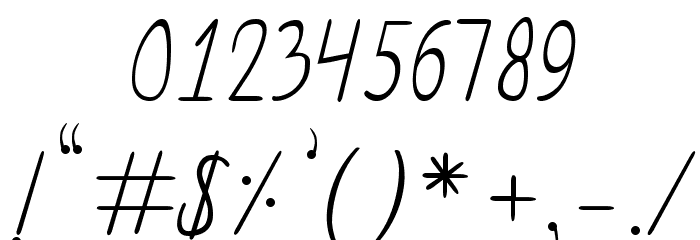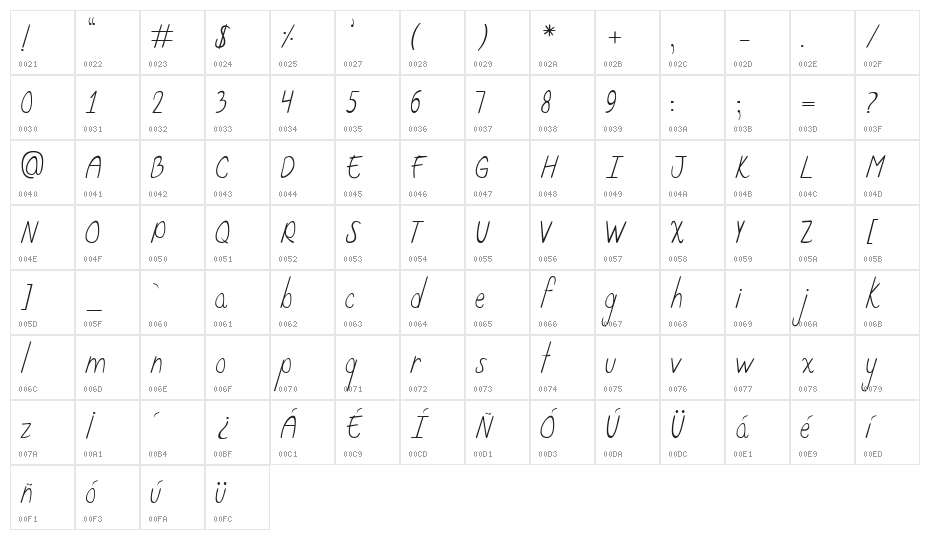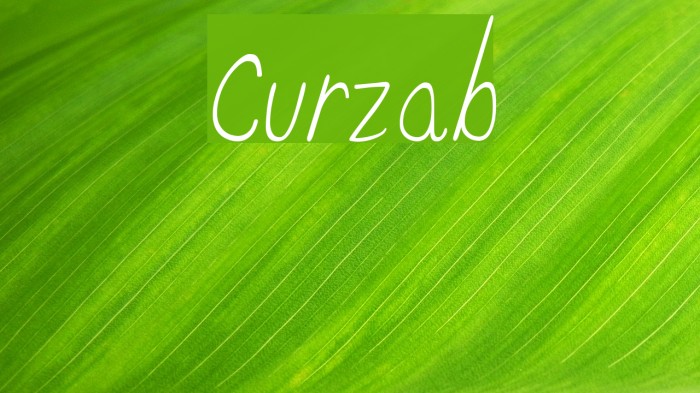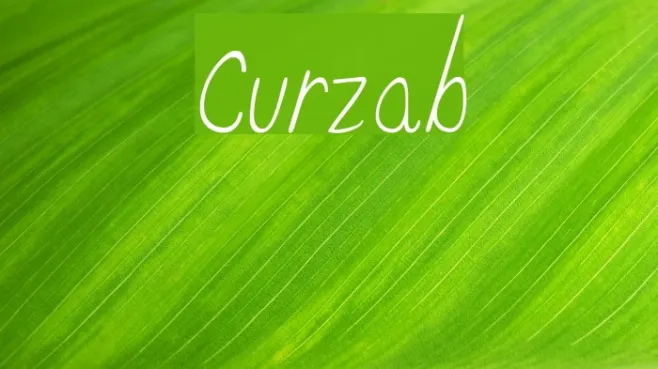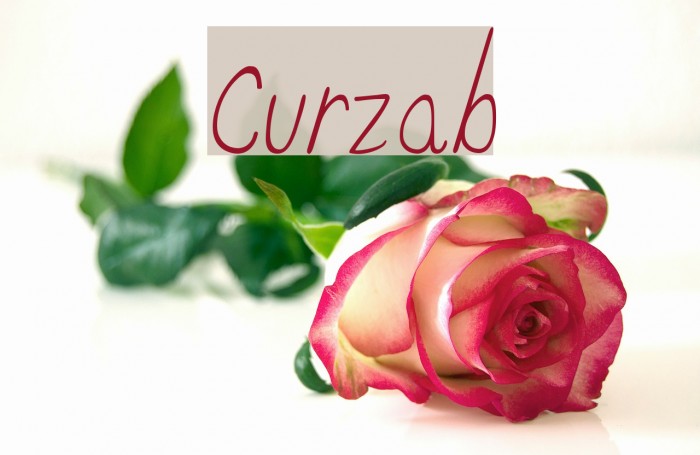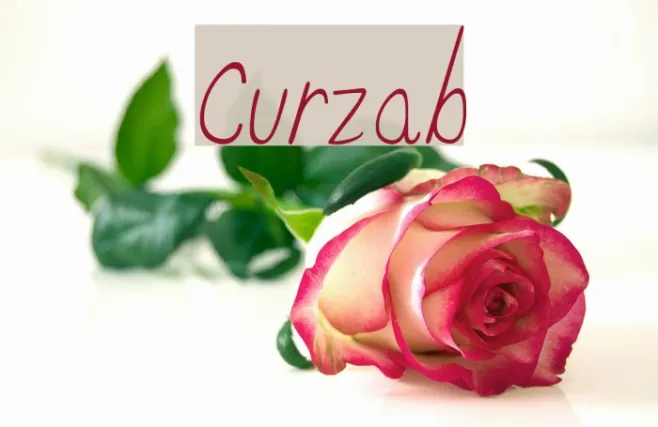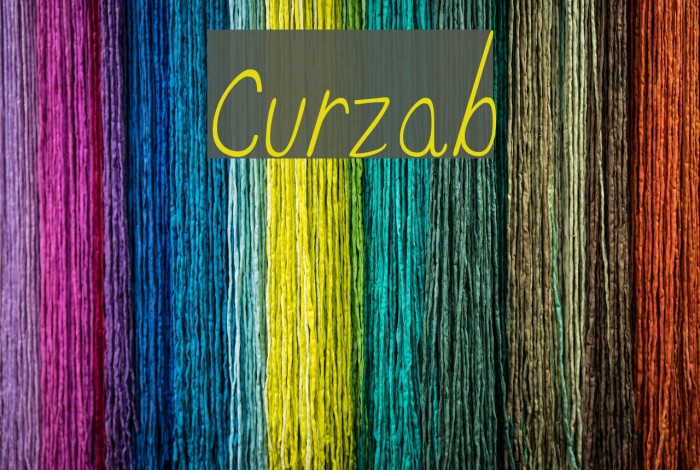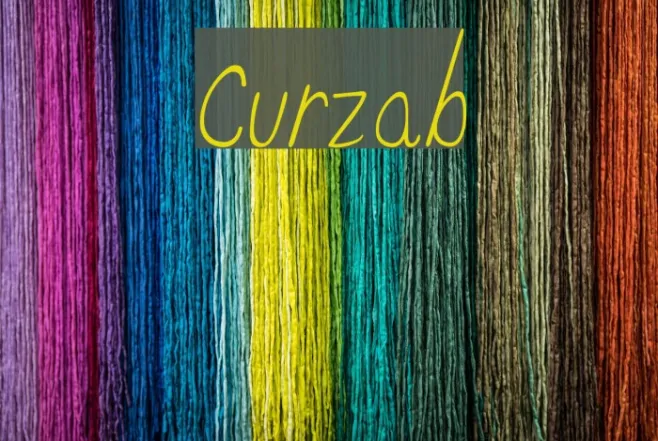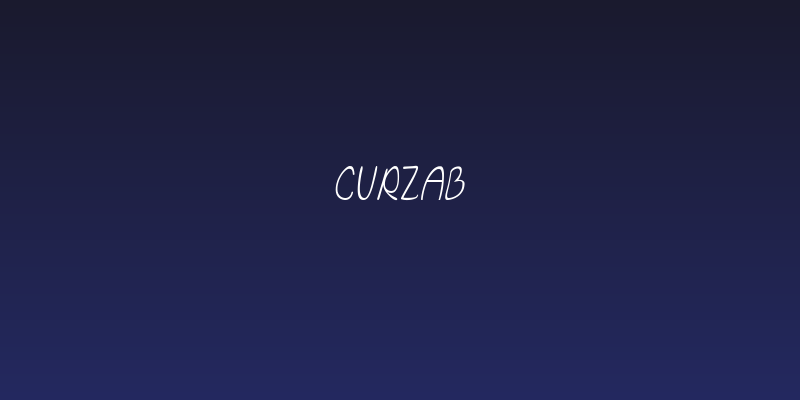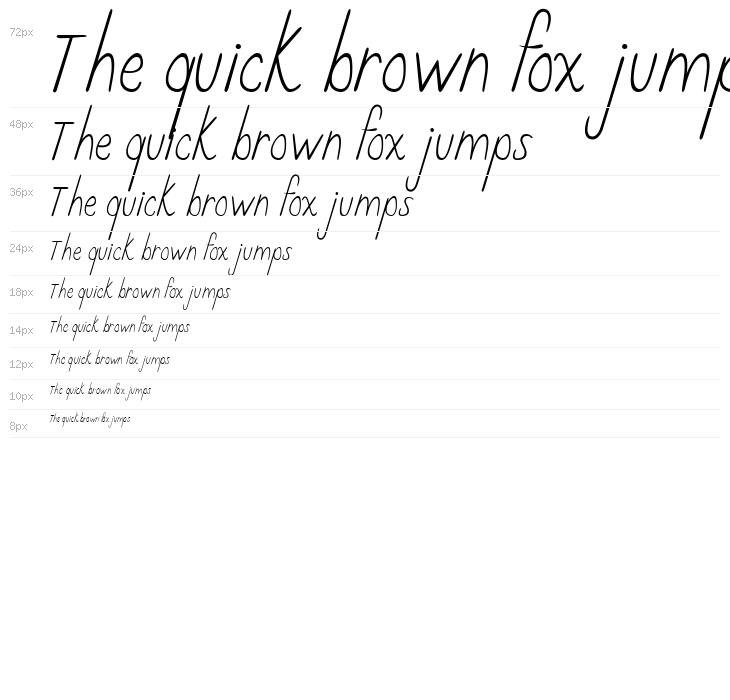
Curzab Font
Curzab Description
This font features a handwritten style with a smooth, flowing appearance. The characters are slightly slanted, giving it an informal and personal touch. The uppercase letters are tall and narrow, while the lowercase letters maintain a consistent height, enhancing readability. The numbers are well-proportioned, and the special characters are distinct, complementing the overall aesthetic. The strokes are even, with a medium contrast, providing a balanced look that is both elegant and approachable.
Overall StyleCasual, Elegant
Use CaseInvitations, Greeting cards, Casual branding
Proposed ProjectsIdeal for personal invitations, greeting cards, casual branding, and social media graphics.